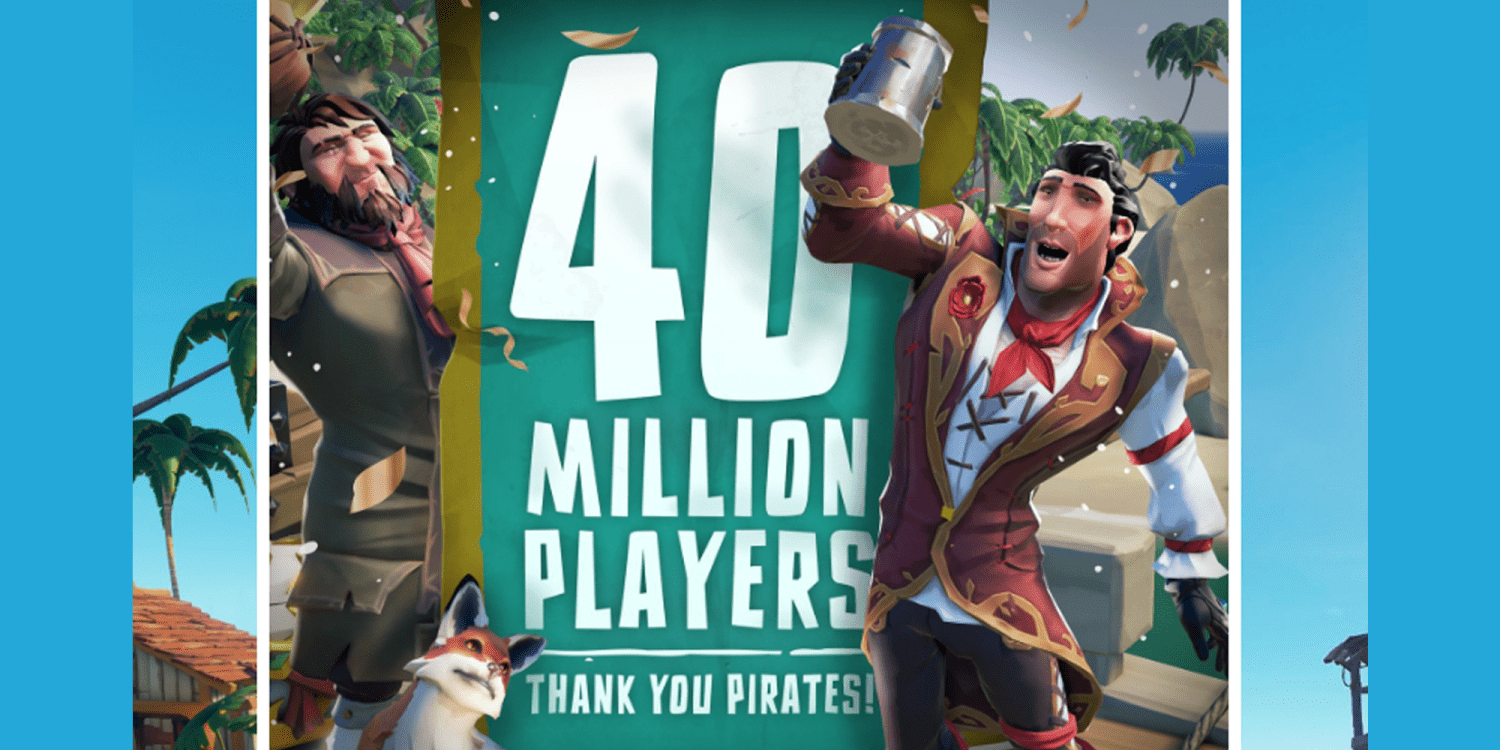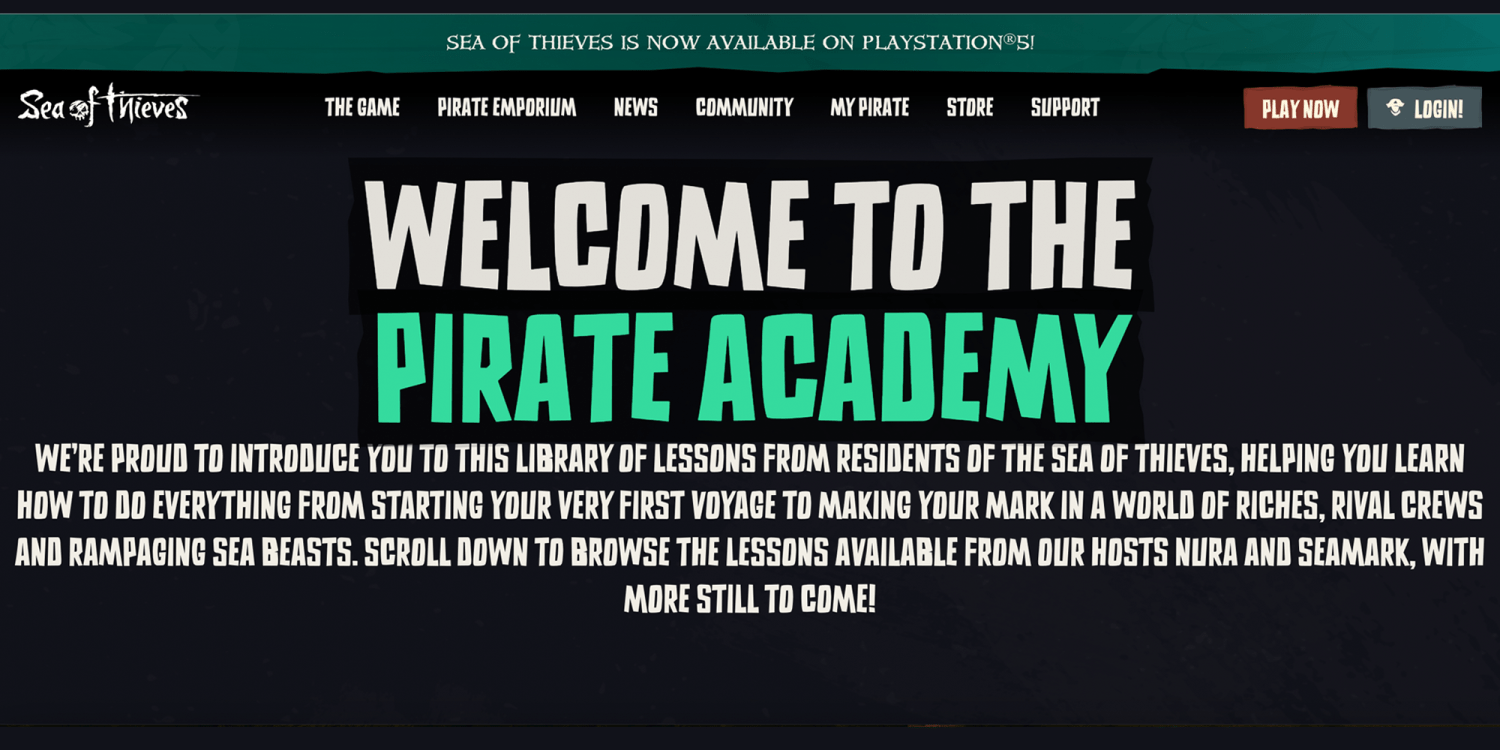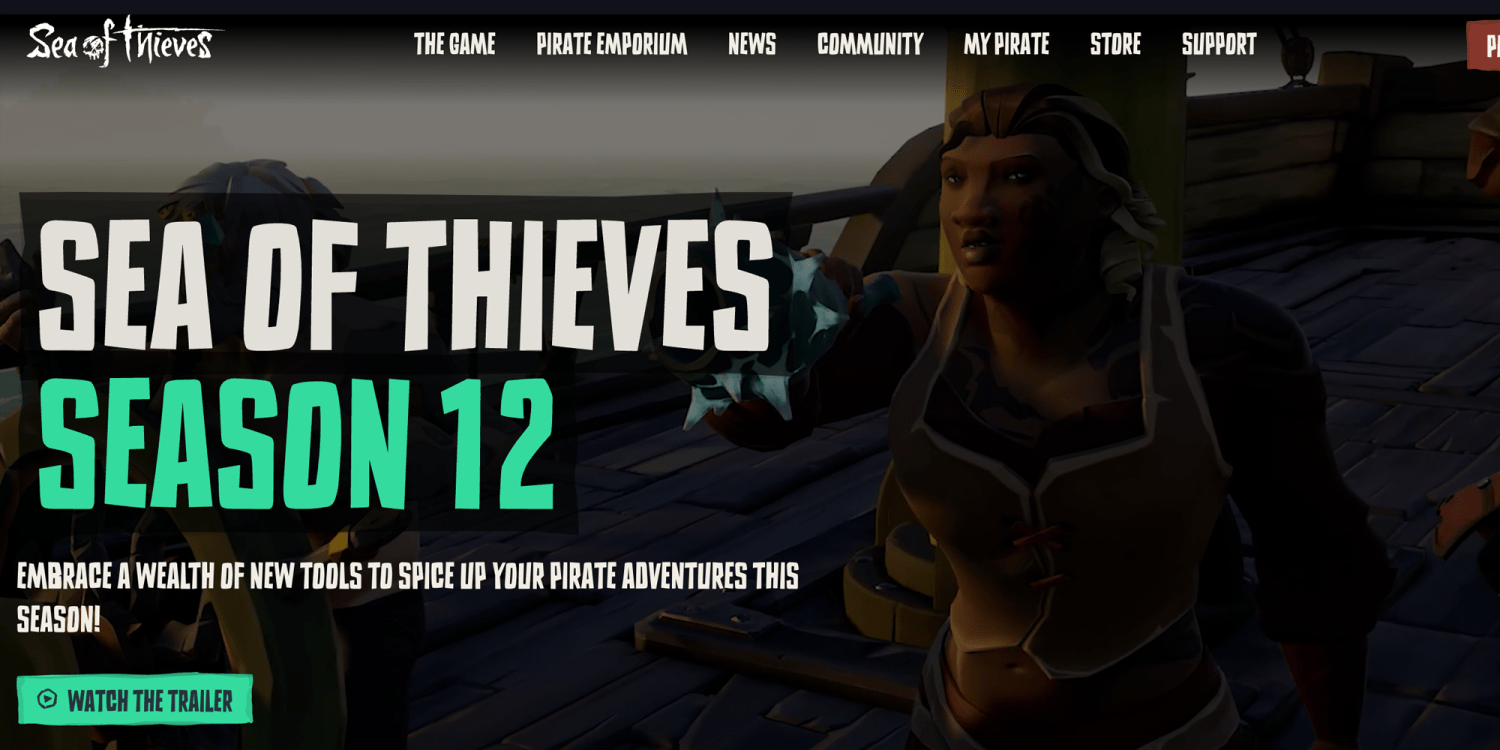
Step into the bold and captivating world of Burlesk, a custom-crafted typeface that’s rewriting the rules of the gaming and entertainment industries. Designed by Coert De Decker at Kustomtype, Burlesk is more than just a font—it’s an immersive visual experience.
The Ultimate Typeface for Gaming and Beyond
Burlesk isn’t just a pretty face. It’s the font that’s taking over the world of gaming design, creating bold and playful aesthetics that capture the spirit of adventure and storytelling. Featured in the legendary Sea of Thieves, one of the most popular online multiplayer games, Burlesk gives a sense of depth and excitement to the game’s campaigns, videos, and ads. With over 40 million players worldwide, Burlesk has made its mark on the gaming community and continues to be a go-to choice for creative design.
The Story Behind Burlesk
The name “Burlesk” has its roots in the world of entertainment and theater. Derived from the term “burlesque,” which refers to a playful and exaggerated style often used to poke fun at serious subjects, this font brings that irreverent, bold, and playful attitude into the world of type design. It’s the perfect choice for adventures, epic storytelling, and creating a visual language that’s both dramatic and dynamic. And just like in The Game of Thieves, where pirates and treasure hunts come to life, Burlesk serves as the perfect visual tool for crafting stories full of mystery, excitement, and bold character.
Two Stunning Styles for Endless Possibilities
Burlesk comes in two distinct styles: Regular and Inline, each offering flexibility for a wide range of design projects. Whether you’re working on a game logo, merchandise, social media content, or branding, Burlesk adapts perfectly to any creative direction, providing a timeless and energetic touch.
Trusted by the Biggest Names in Entertainment
From Microsoft and Disney to Lucasfilm, Sony, and Netflix, Burlesk is the trusted font choice for industry giants. It’s used in cinematic campaigns, branding, advertising, and more, where it’s known for delivering impact and character. When a project demands high creativity and unforgettable designs, Burlesk is there to make sure the results stand out.
Why Burlesk?
- Perfect for Gaming: Bring your game designs to life with a font that’s as bold and adventurous as your content.
- Impactful Branding: Ideal for creating strong, memorable logos, and campaigns that stand out in any industry.
- Versatile Design: Whether it’s for game development, advertising, or social media, Burlesk adapts seamlessly to your project.
- Multilingual Support: With 287 languages supported, reaching over 2.7 billion speakers worldwide, Burlesk is a global powerhouse in design.